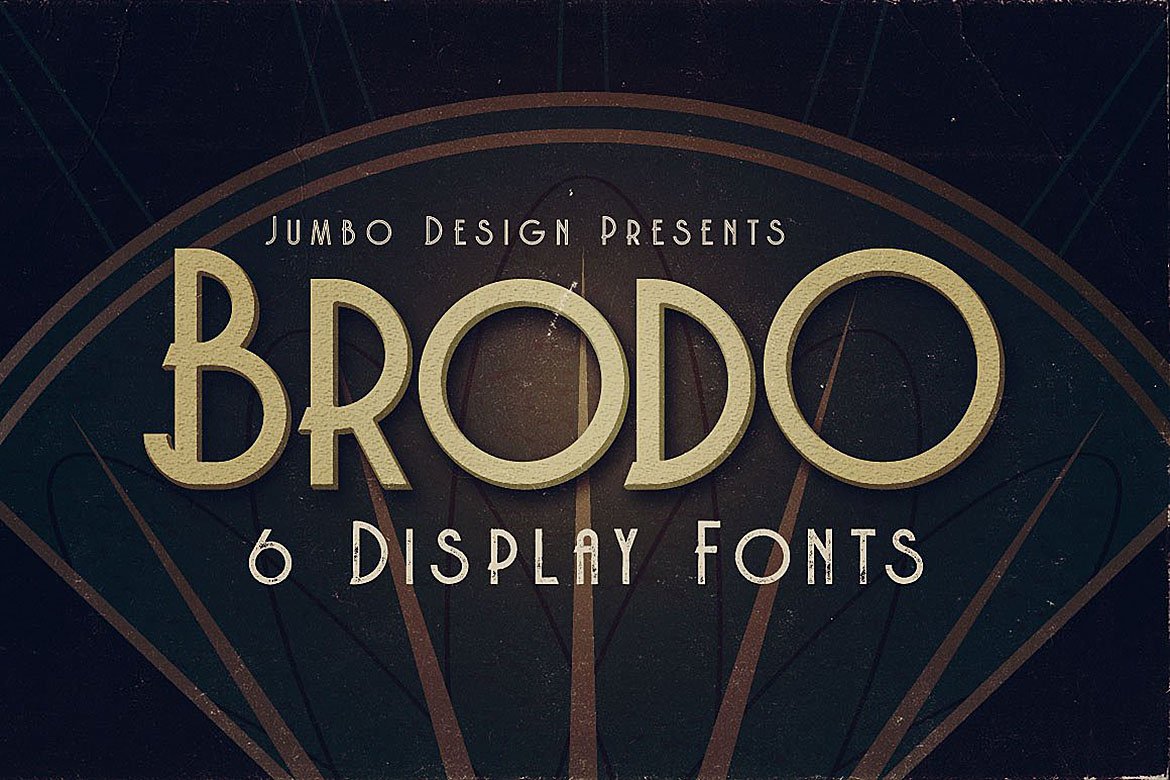
Unlock the Timeless Elegance of Brodo Font
Have you ever found yourself browsing through old Hollywood movies, admiring the sleek lines and metallic sheen of 1920s and 1930s movie posters? For designers like you, those iconic visuals are more than just nostalgic – they’re a source of inspiration. And that’s exactly where Brodo Font comes in – a clean and stunning sans serif display font crafted with an art deco sensibility that’s sure to transport your designs back in time.
Whether you’re working on a modern branding project or a vintage-themed design, Brodo Font offers the perfect blend of style and versatility. With its sleek lines and geometric shapes, this font can easily adapt to a wide range of creative projects, from fashion and luxury goods to entertainment and travel. As a designer, you’ll appreciate the flexibility and creative freedom that Brodo Font provides.
Brodo Font Key Features
- Font Family: Brodo Font is a sans-serif typeface designed for digital use, making it ideal for on-screen reading.
- Size: The font family consists of 6 weights, ranging from Thin to Black, providing flexibility for various design applications.
- Resolution: Designed for high-resolution displays, Brodo Font looks great at resolutions of 72 dpi and above.
- Unique Characteristics: The font features a clean, modern design with subtle rounded edges, making it perfect for corporate, tech, and lifestyle brands.
- Kerning and Ligatures: The font includes expertly crafted kerning and ligatures, ensuring smooth text rendering and a professional look.
Brodo Font Review
Firstly, I’d like to say that Brodo Font has a certain charm to it. The unique combination of modern and vintage elements ✨ makes it stand out in a crowded font market. The font’s versatility is one of its strongest points, as it can be used in a variety of contexts, from corporate branding to digital interfaces.
However, I do have some concerns about the font’s legibility, particularly at smaller font sizes. The letterforms can become somewhat pixelated ⚠️, which may be an issue for designers working on projects with tight pixel density constraints. Additionally, the font’s x-height is relatively short, which can make it difficult to read for those with visual impairments.
- Unique blend of modern and vintage elements ✨
- Highly versatile, suitable for various design contexts
- Wide range of weights and styles available
- Legibility issues at smaller font sizes ⚠️
- Short x-height may affect readability for some users
Overall, I think Brodo Font is a solid choice for designers looking to add some visual interest to their projects. While it may have some limitations, its unique charm and versatility make it a worthwhile consideration. Just be sure to test the font at various sizes and resolutions to ensure it meets your project’s needs.
Brodo Font is suitable for:
- Body text for creative projects
Tip: Use Brodo Font to add a touch of elegance and sophistication to your designs.